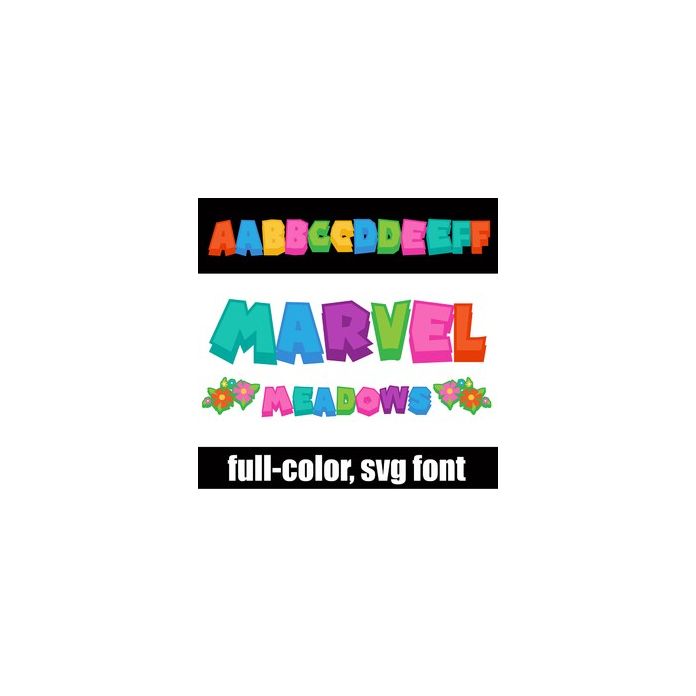
This full-color font features video game style lettering with a 3d-shadow in a summer color palette. Access a cute floral flourish by typing the greater than and/or less than glypns. There is an alt case w/ additional colors you can access through your system or Silhouette's glyph map.